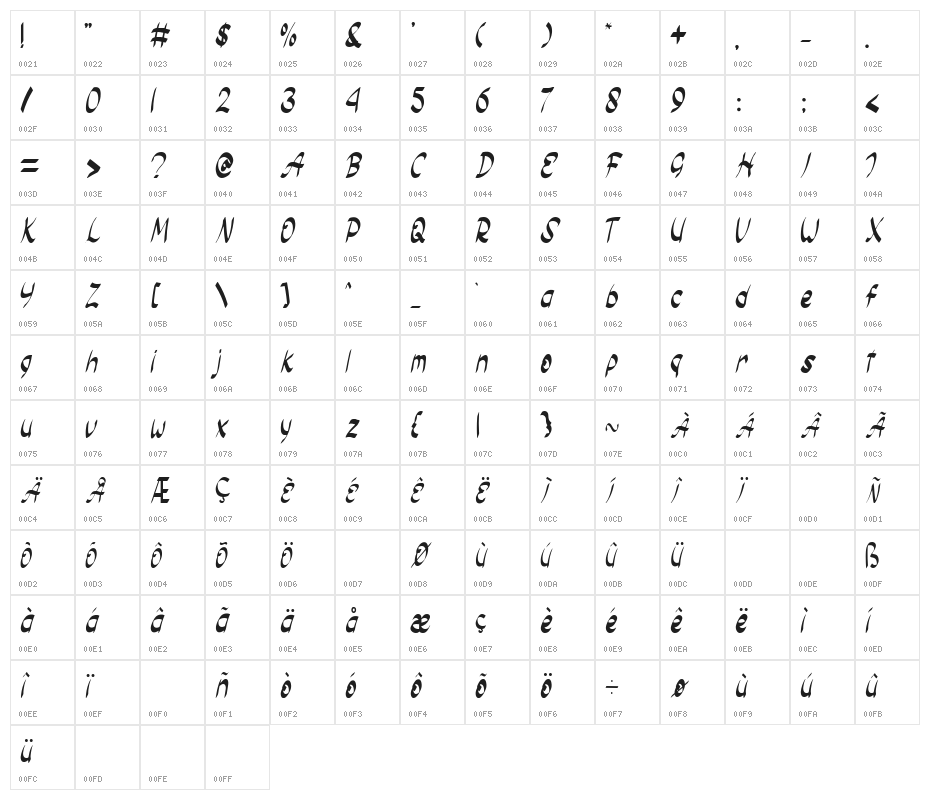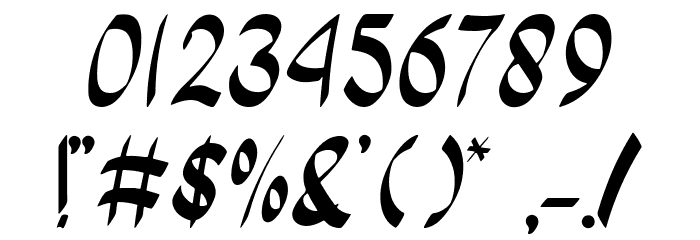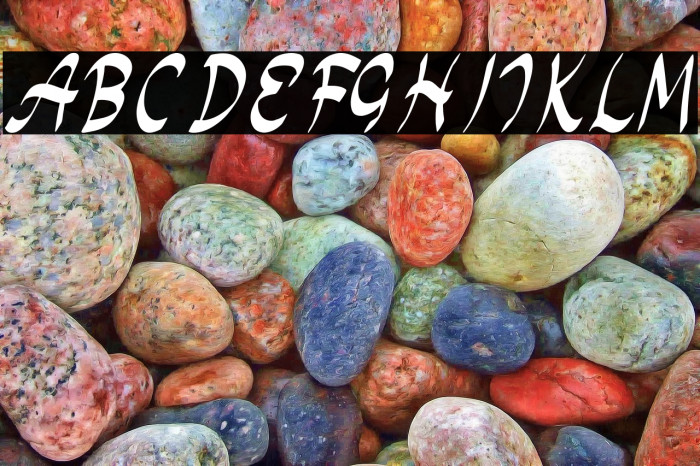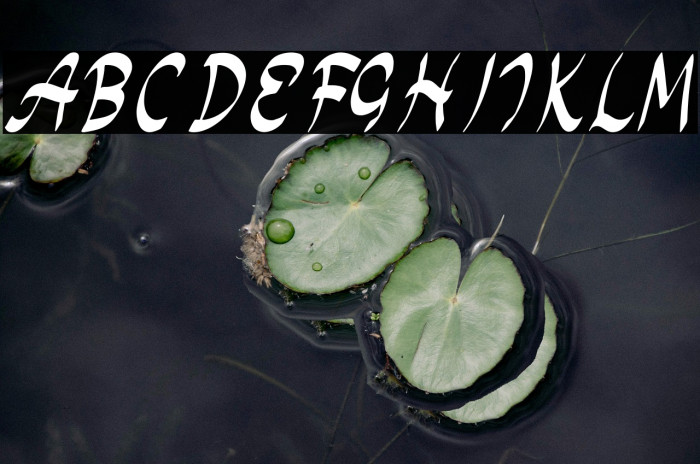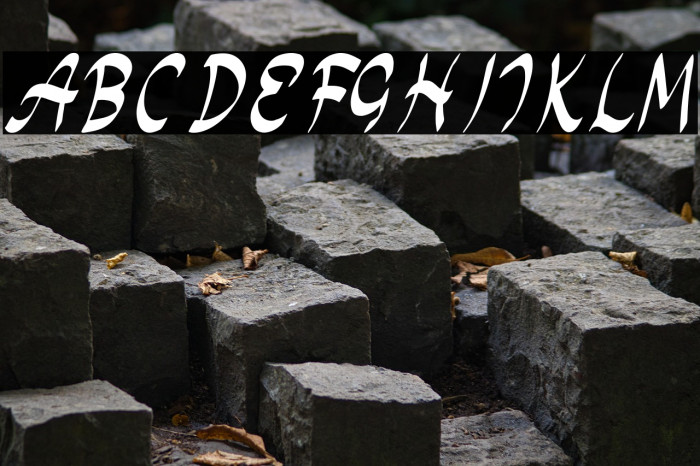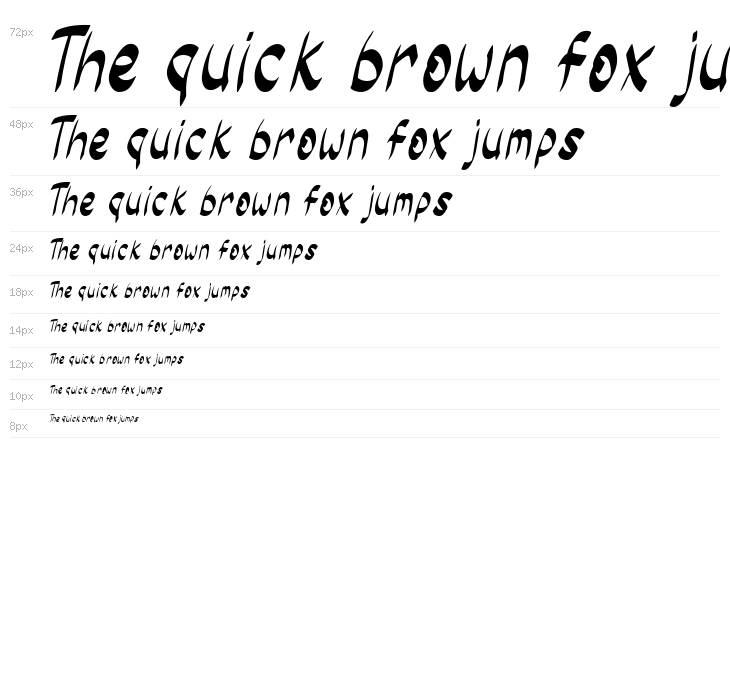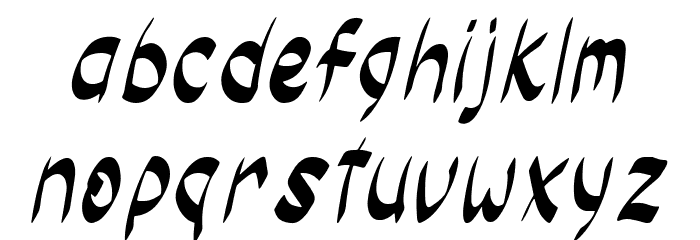
Monday Special Font
Monday Special Description
This font features a dynamic and expressive style, characterized by its bold, flowing strokes and a slightly slanted orientation. The uppercase letters exhibit a strong presence with sharp, angular lines that convey a sense of movement and energy. The lowercase letters maintain a consistent style, with smooth curves and a lively rhythm. The numerals are distinct and bold, ensuring readability while maintaining the font's overall aesthetic. Special characters are creatively designed, adding to the font's unique personality. This font's playful yet sophisticated appearance makes it suitable for a variety of creative applications.
| Proposed Projects | Ideal for branding, posters, creative advertising, and any project that requires a bold, artistic touch. |